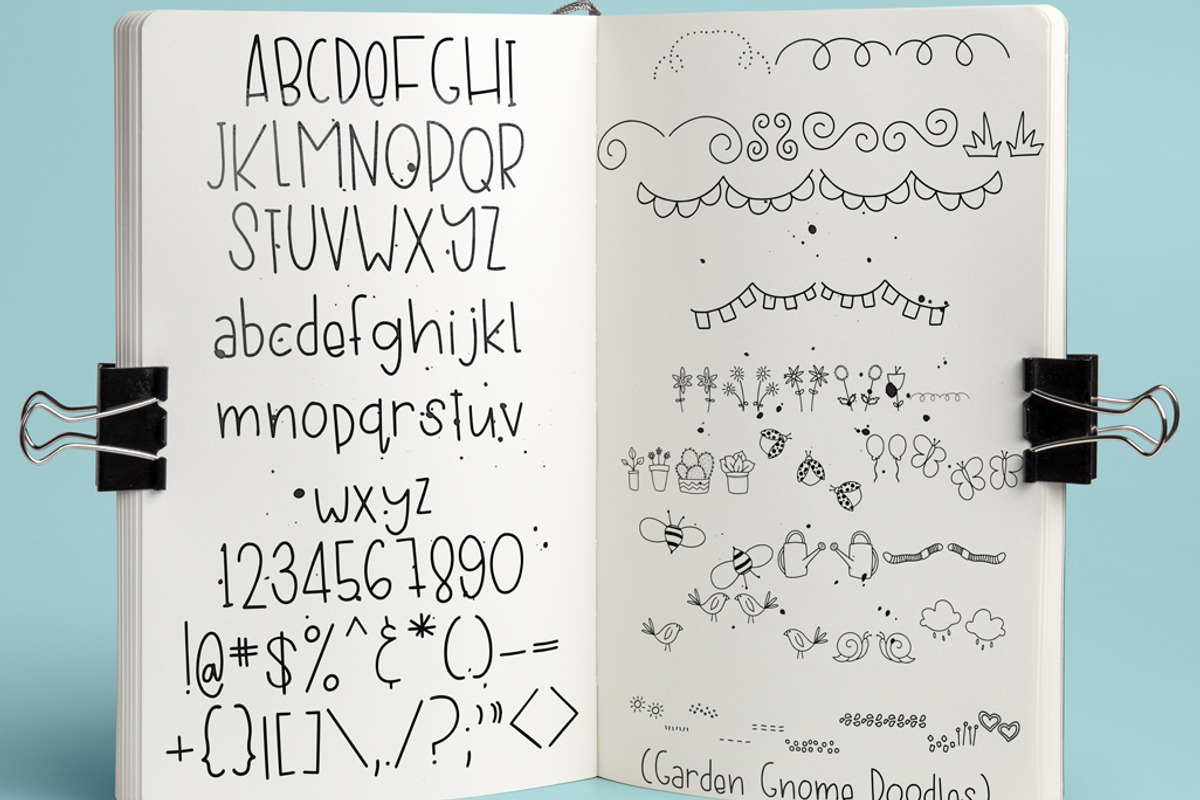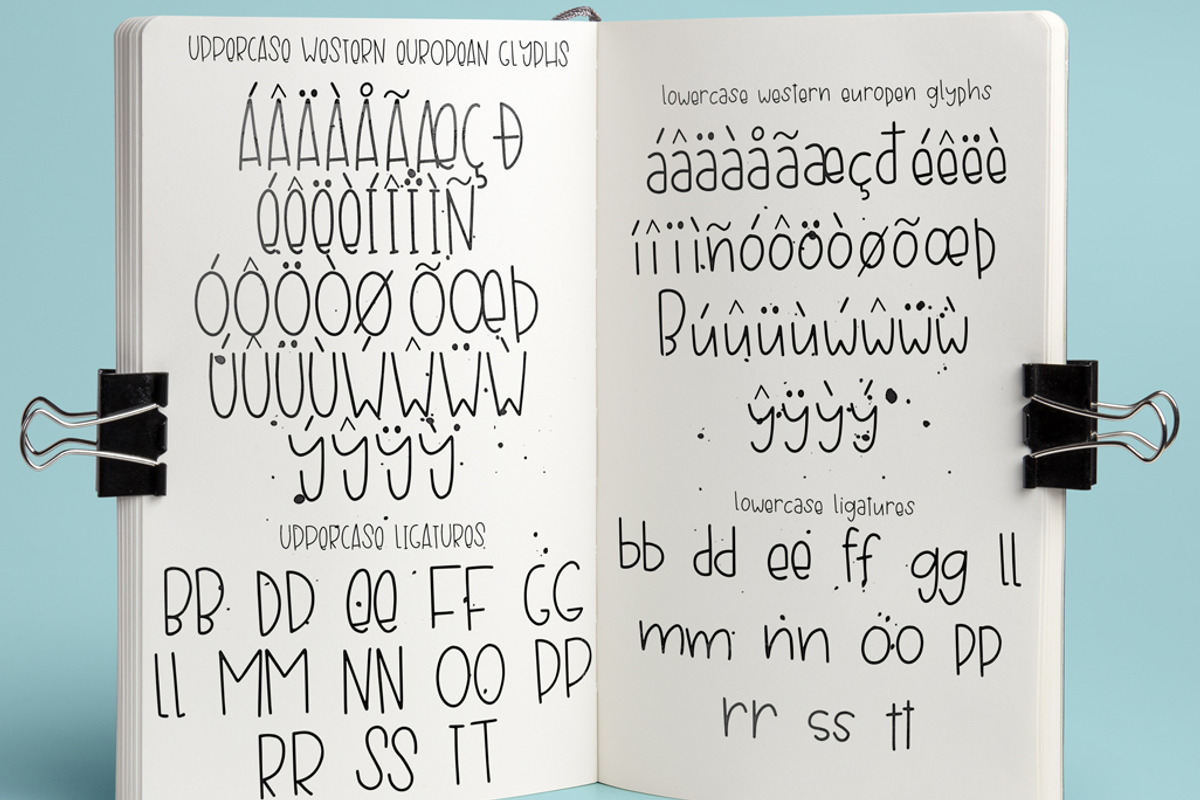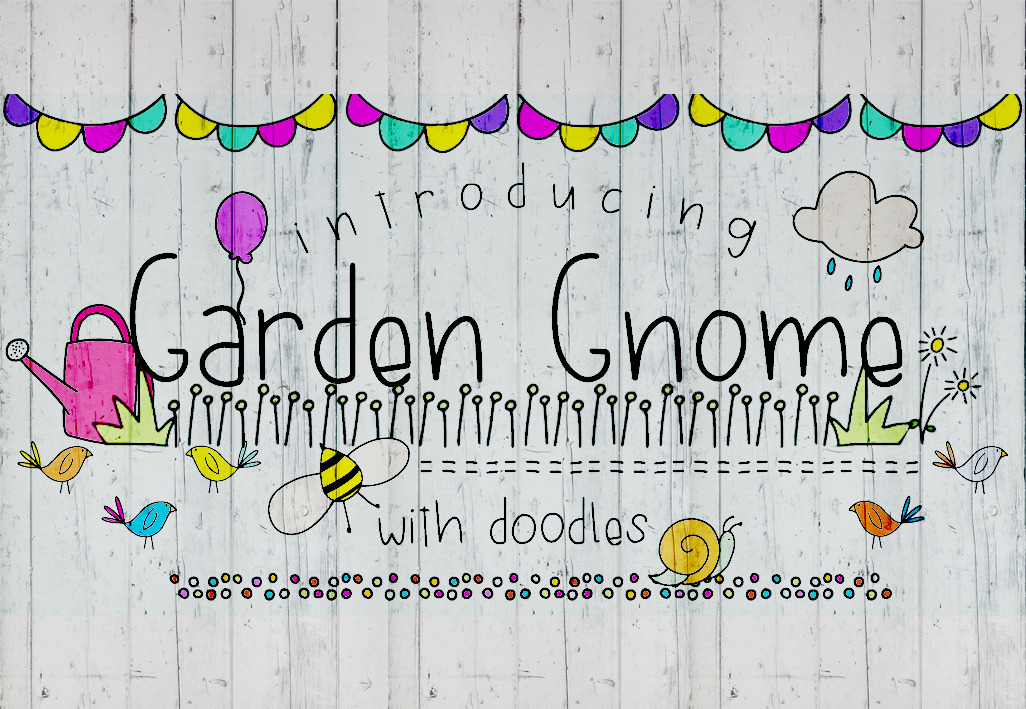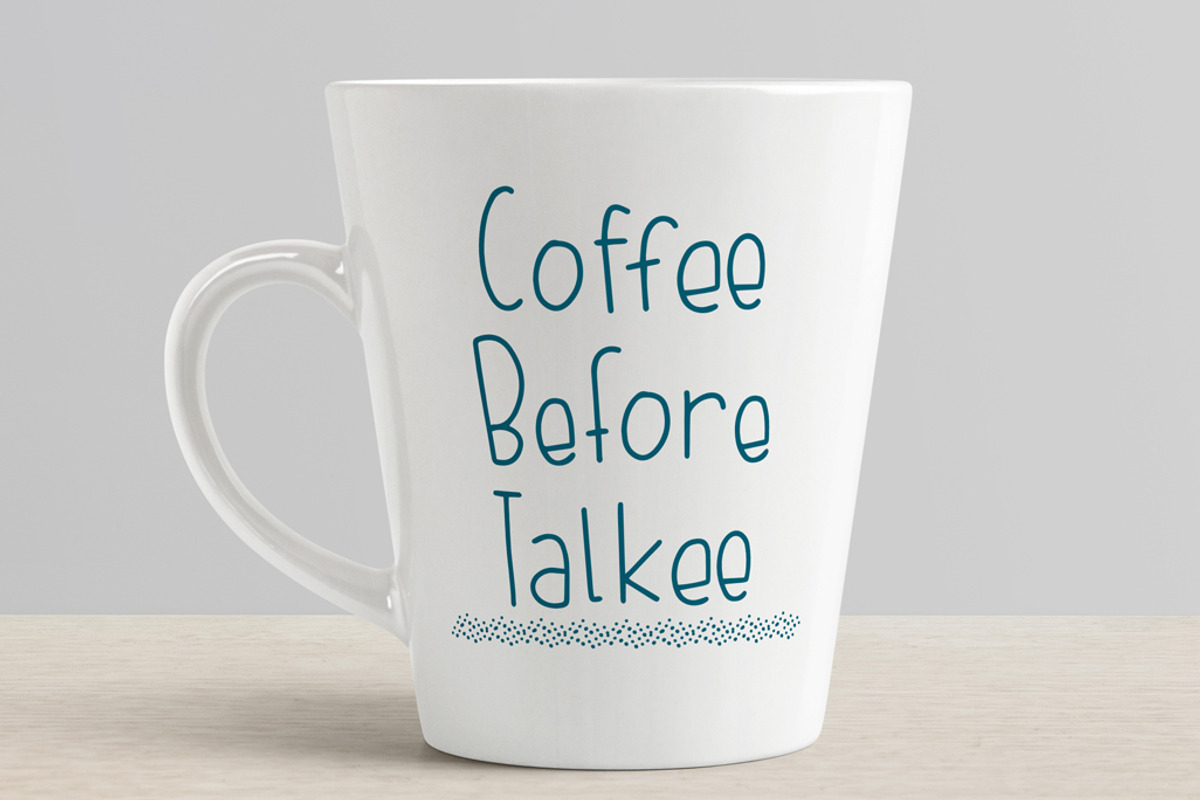
Garden Gnome Font Duo
Give your designs a hand-letterd dose of personality with font duo, Garden Gnome! Perfect for birthday and greeting cards, branding, social media, packaging, magazine layouts, prints and more!
Garden Gnome includes 2 fonts: Complete Alpha and Doodles, created to pair perfectly together to bring your designs to life.
A full Print font with custom ligatures for more unique, hand drawn look. Includes numbers, and punctuation.
A Doodle font with 52 hand drawn doodles (upper and lowercase), and 10 (numbers 0-9) repeating line patterns.
Multilingual support is included for Western European languages (Please test your characters in the font previewer below before purchase.)